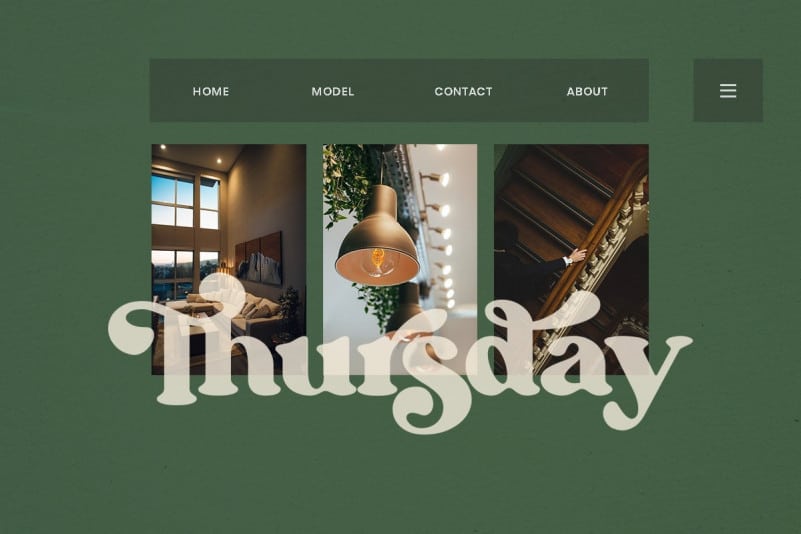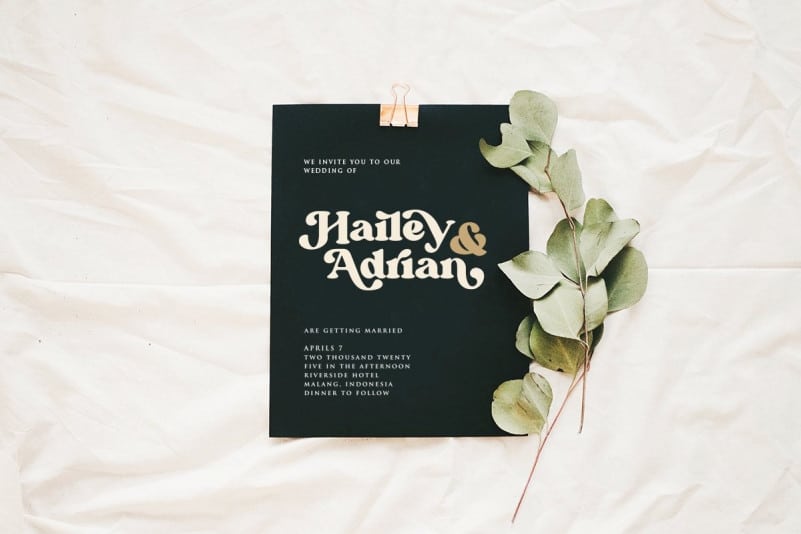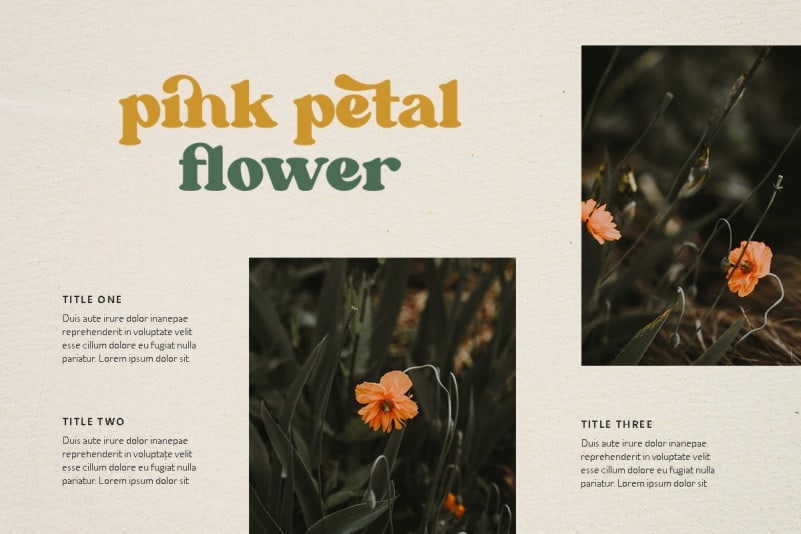
Bargie Serif Font is inspired by vintage decorative letters or cards. With ornamental vintage style and lot of swashes you can create realistic headers. It’s perfect match for logotypes, branding, wedding monograms and invitations, blog headlines and much more.
Bargie fits perfectly into those nostalgic moodboards and vintage logos. It come with a unique lower and uppercase plus numbers, punctuation & multilingual letters.